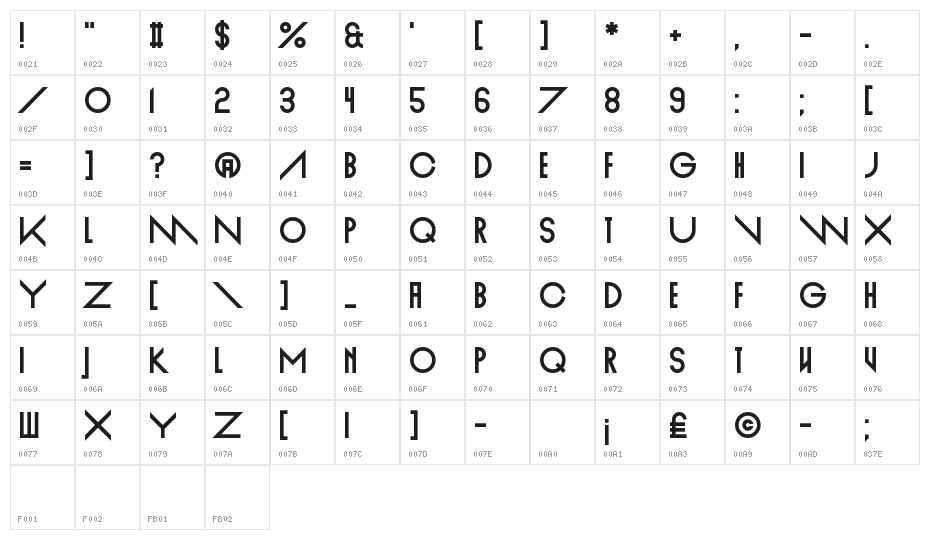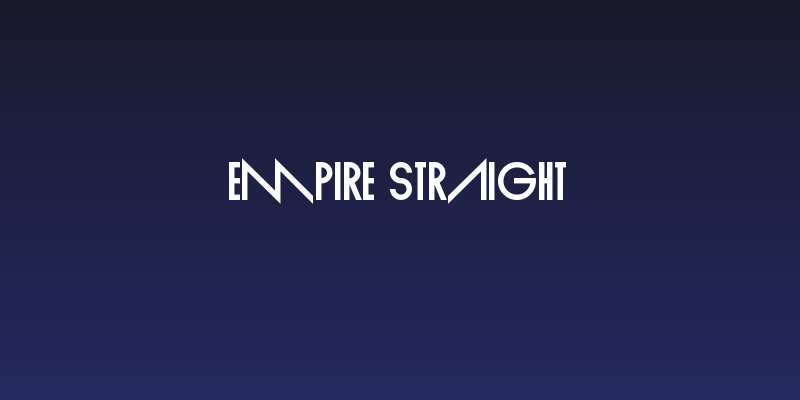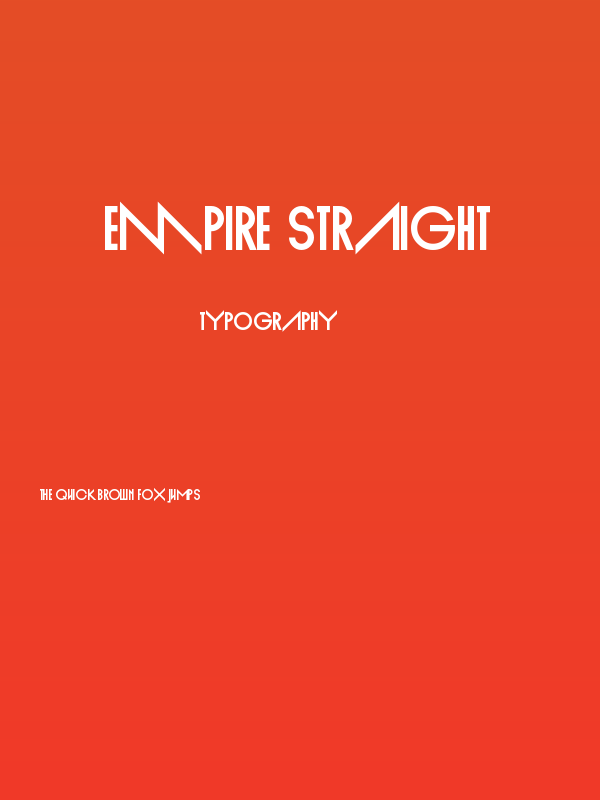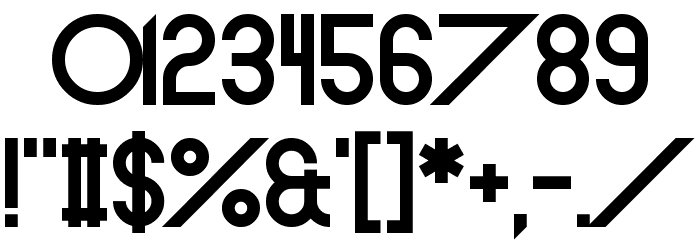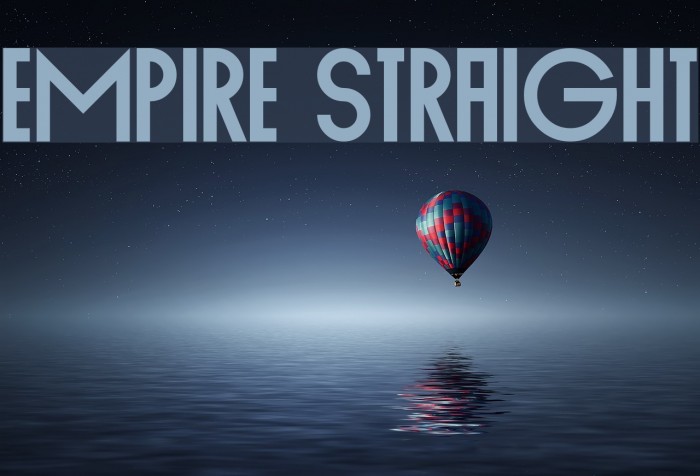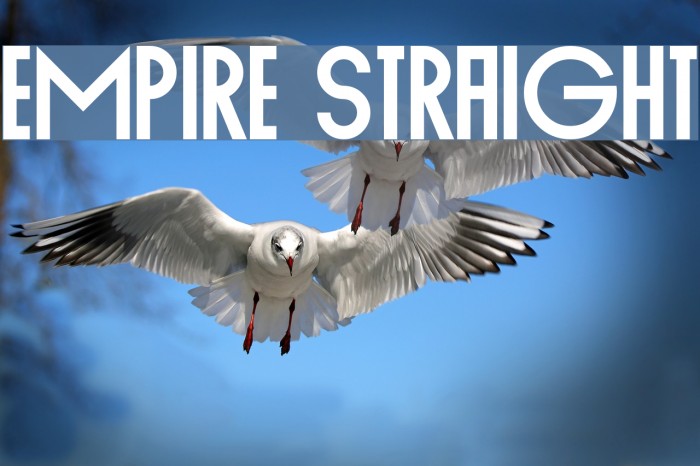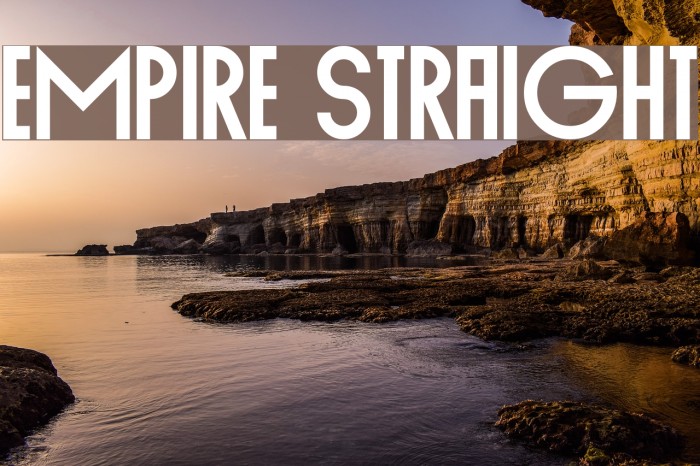
Empire Straight Font
Empire Straight Description
This font features a bold and geometric design with sharp angles and clean lines. The uppercase letters are characterized by their straight edges and pointed tips, creating a modern and futuristic appearance. The lowercase letters maintain a consistent style, complementing the uppercase with similar angular features. Numbers are equally bold and geometric, ensuring readability and a cohesive look. Special characters are designed to match the overall aesthetic, making this font suitable for a variety of creative applications.
| Proposed Projects | Ideal for branding, posters, and futuristic designs, this font can be used in projects that require a strong visual impact and modern aesthetics. |